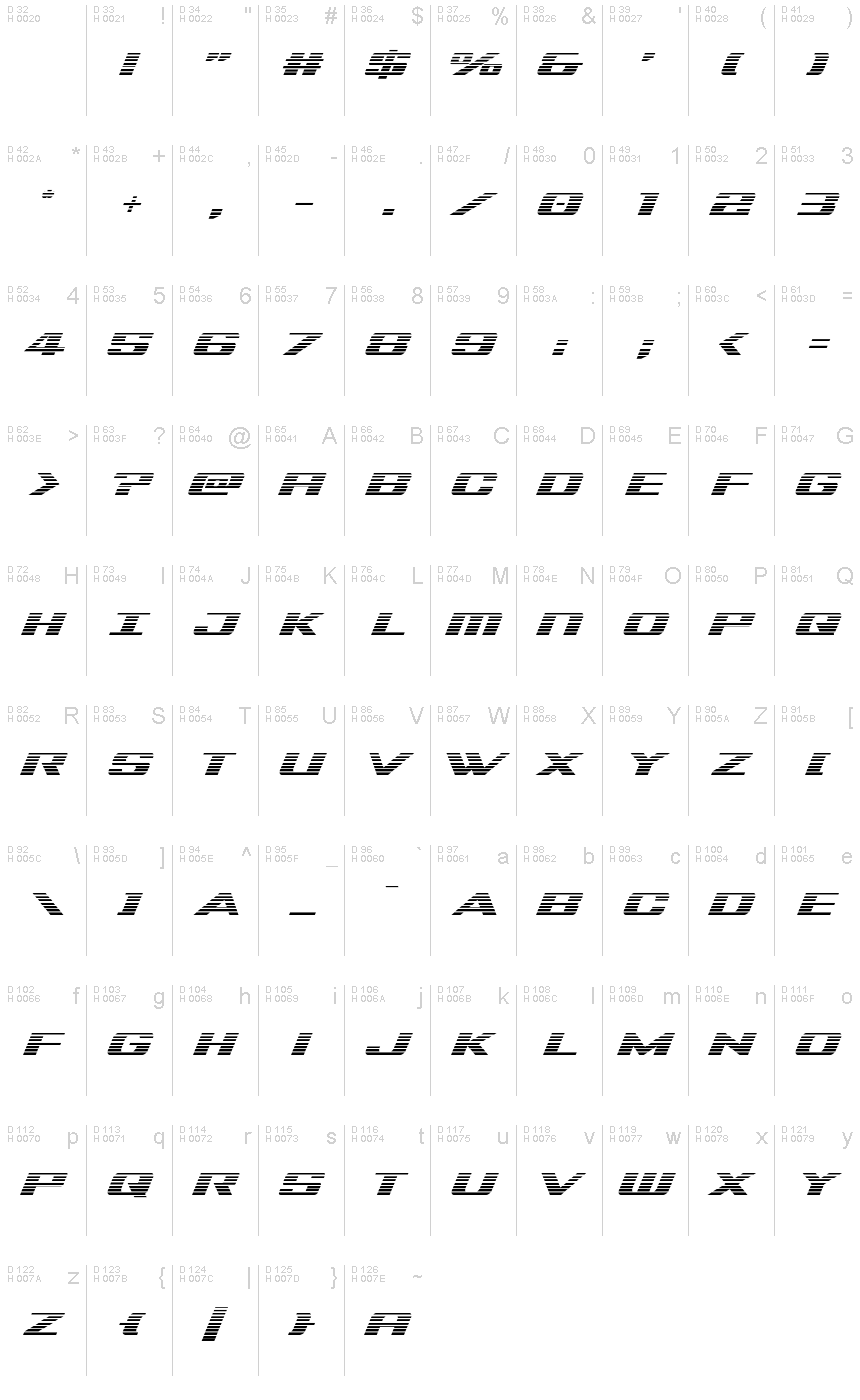
Tigershark Gradient Italic by Iconian Fonts is a free modern display font with a fast striped profile. Broad, forward-leaning capitals are sliced into tight horizontal bands, giving the lettering the look of speed lines across solid industrial shapes.
Sports graphics and digital banners suit its forceful direction, and it also has the scale and punch for motorsport merchandise. Those repeated stripes echo racing livery, broadcast graphics, and sleek aerodynamic packaging.